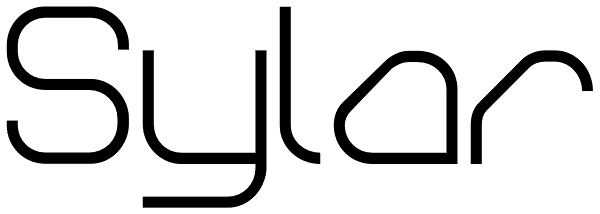
Sylar
A linear modern typeface suited for branding & advertising projects. The variations in weight give great contrast when used across body copy & headlines.